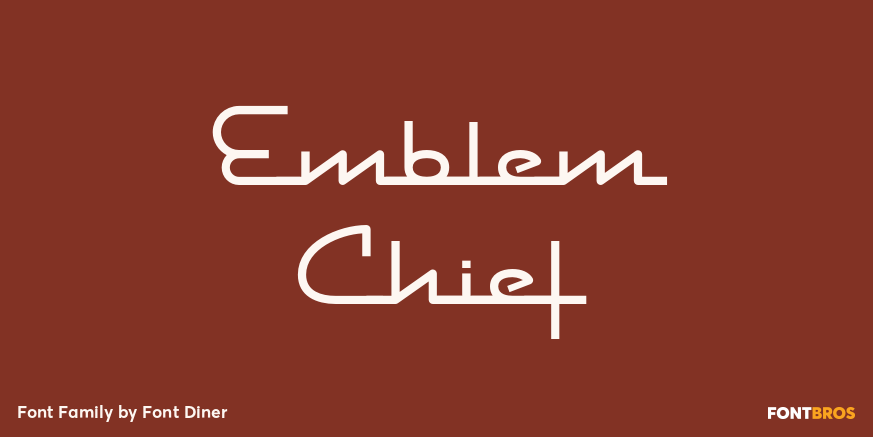
HomeFont BrosArt Deco (1910-1935)Emblem Chief Art Deco (1910-1935)Scripts: CasualScripts: FormalRetro (1936-1965) Emblem Chief FacebookXPinterestWhatsApp 1 of 1 About Emblem Chief Grab your Turtle Wax and start polishing that beautiful automobile brightwork to a chomey shine with Emblem Chief inspied by 1950s automotive lettering  DOWNLOAD ON FONT BROSThis font is sold and delivered by Font Bros. Font Canyon may earn a commission if you buy through this link. People also explored Womens Day Font Brandine Font Honeymoon Font Amellya Font Grilesthy Semi-Bold Font Welcome Creative Passengers Side Rear Car Mockup Wide Noise Casanova Font 260 0 TagsEmblem Chief Font Previous articleGroomNext articleRoman Forum LEAVE A REPLY Cancel reply Comment: Please enter your comment! Name:* Please enter your name here Email:* You have entered an incorrect email address! Please enter your email address here Website: Save my name, email, and website in this browser for the next time I comment. Personal Use Free Hello, How Are You? Personal Use Free Read more about this font BD Geminis Personal Use Free Read more about this font Sweet Beautiful Personal Use Free Read more about this font Rocketto Personal Use Free Read more about this font BLOG Free Fonts Risk: Why Free Fonts Can Be Dangerous for Designers Free Fonts Risk: Why Free Fonts Can Be Dangerous for Designers Using free fonts is a common practice in web and graphic design. However, the... The 10 Best Handwriting Fonts to Add Personality to Your Designs Using Fonts in Digital Marketing: Tips to Strengthen Your Brand Identity Exploring Font Trends